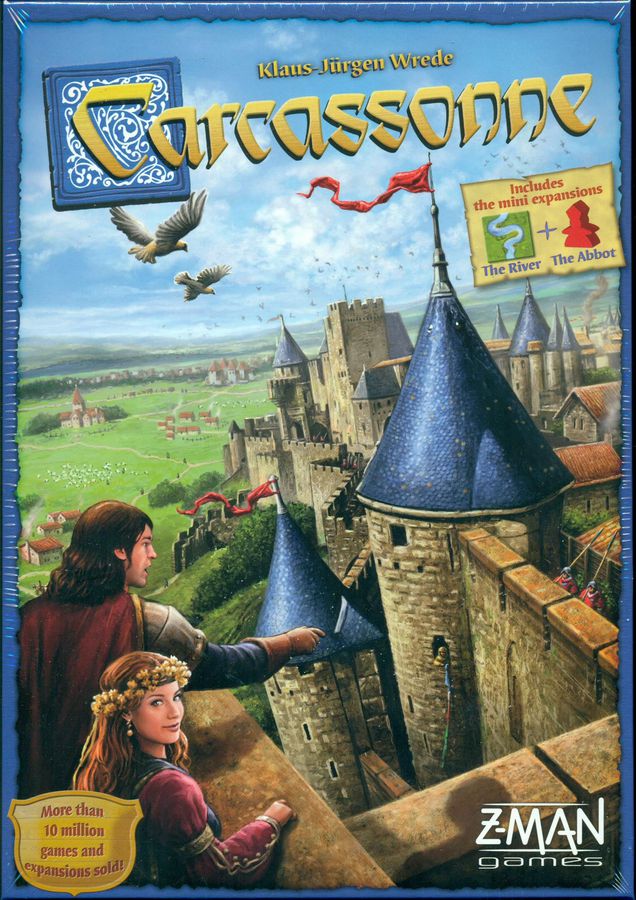
Fonts in UseCarcassonne is a popular board game where players take turns laying tiles to create a medieval landscape and strategically placing their followers to gain points. It was created by Klaus-Jürgen Wrede in 2000 and originally published by Hans im Glück.
Carcassonne's box art features the game's title in a hand-drawn typeface called Lindsay by Margaret Lindsay Holton. Lindsay typeface was licensed to Letraset in 1980 and a digital version was made in the 1990s, but due to licensing issues it's no longer available. The title is complemented by a serif Barbedor Heavy, designed by Hans Eduard Meier in 1987.